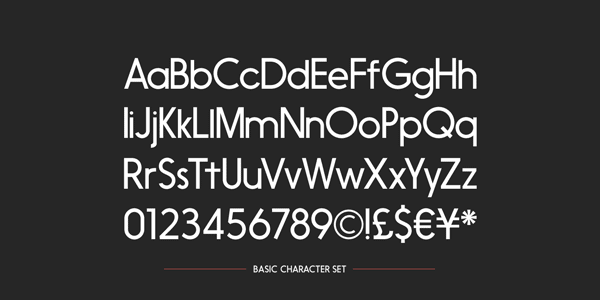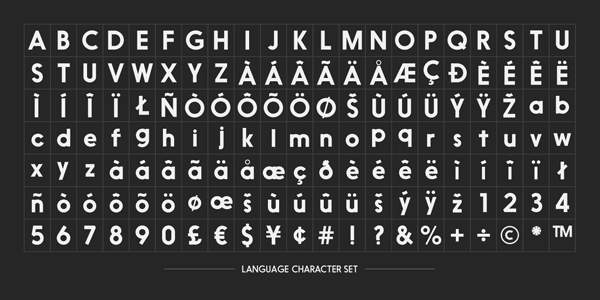
Nanami Type Family.
The Nanami font family was designed by Alex Haigh in 2013 (Font Publisher: Thinkdust). The sans serif typeface is inspired by geometric swiss fonts, which were often used in Japan during the 1970s. The Nanami type family consists of 18 weights ranging from Thin to Black. Nanami’s extensive character set supports more than 27 languages. You can use it as display font for your headlines and also as well legible text font. Nanami looks clean, modern, and unique at the same time. The type family is available as Webfont and Desktop font.
Just to notify others – there’s kerning problem with this font, if you use Ä’s and Ö’s.